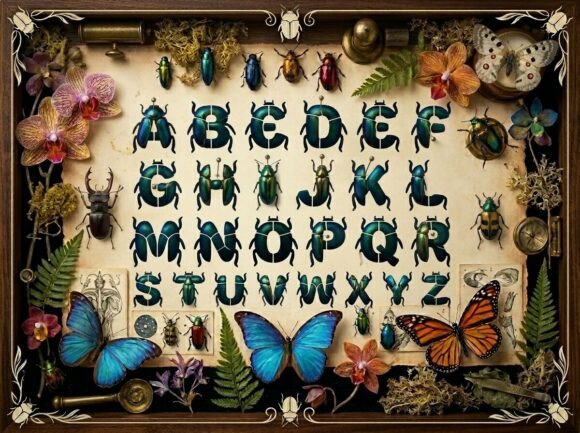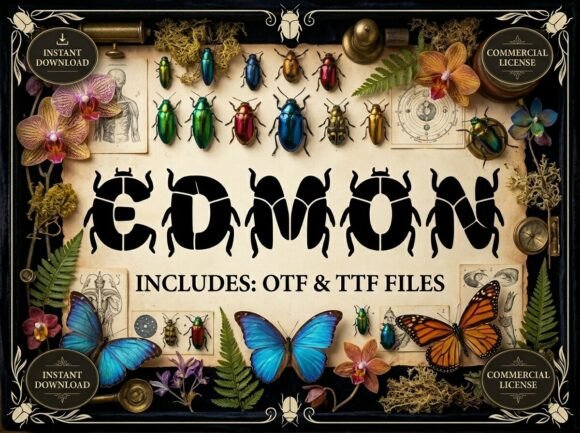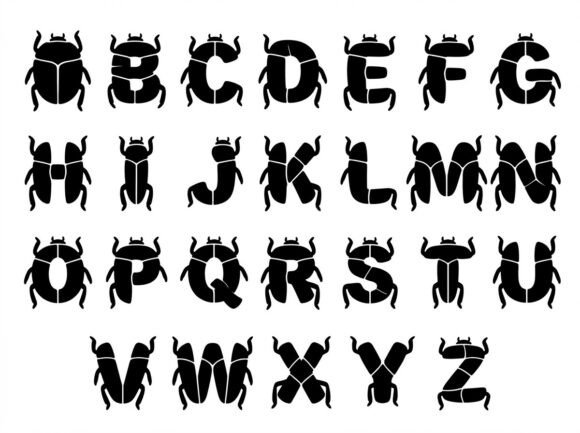
Introducing Edmon Font: A Stunning Decorative Display Font
Are you tired of using the same old fonts for your designs? Do you want to add a touch of uniqueness and creativity to your work? Look no further than Edmon Font, a breathtaking decorative display font that’s sure to turn heads. In this article, we’ll dive into the features and benefits of Edmon Font, and explore how it can elevate your designs to the next level.
Edmon Font is a stunning decorative display font designed to be the center of attention. With its unique artistic elements and strong visual personality, this font is perfect for creators who want to break away from the ordinary. Whether you’re working on a bold headline, artistic logo, or creative packaging, Edmon Font is the perfect choice. Its versatility and professional finish make it an excellent addition to any design project.
Before you make a purchase, it’s essential to note that Edmon Font is an ALL-CAPS (Uppercase Only) display typeface. This means it does not include lowercase letters. It’s specifically designed for high-impact headlines, logos, and decorative initials where every letter is a work of art.
Edmon Font is a dream come true for designers and crafters who want to add a touch of elegance and sophistication to their work. With its unique and artistic elements, this font is perfect for:
- Bold Headlines: Make a statement with Edmon Font’s bold and eye-catching headlines.
- Artistic Logos: Create a lasting impression with Edmon Font’s unique and artistic logo designs.
- Creative Packaging: Add a touch of elegance and sophistication to your packaging designs with Edmon Font.
Tips for Using Edmon Font
To get the most out of Edmon Font, here are some tips to keep in mind:
- Use it sparingly: Edmon Font is a decorative display font, so use it sparingly to make a maximum impact.
- Experiment with colors: Edmon Font looks stunning in bold and bright colors, so don’t be afraid to experiment.
- Pair it with other fonts: Edmon Font pairs well with clean and simple fonts, so try pairing it with a sans-serif font for a striking contrast.